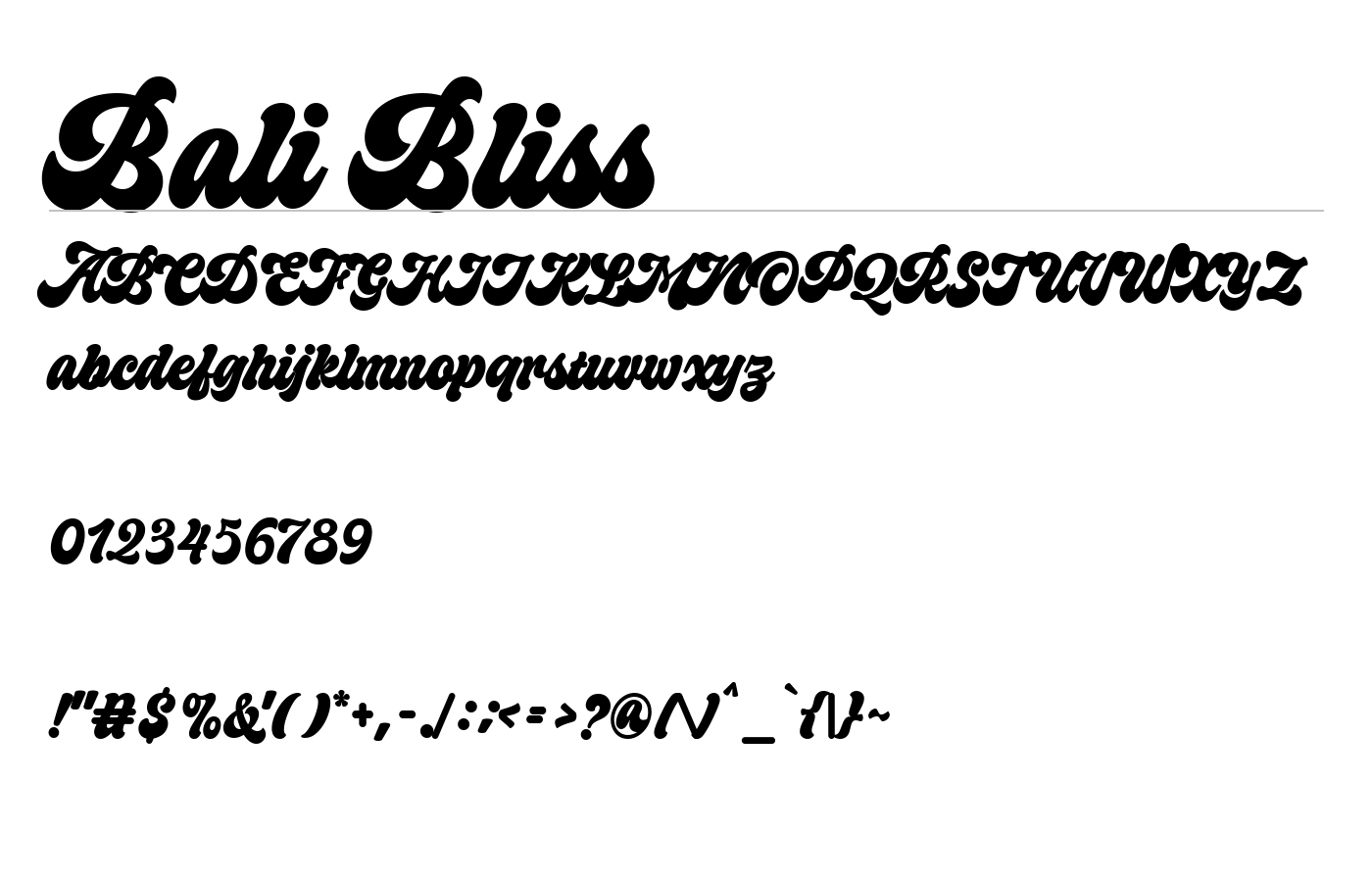
Bali Bliss is a bold, cursive script font with a playful yet elegant personality, featuring thick, rounded strokes and smooth, connected letterforms that create a warm and inviting feel. Its strong presence and stylish curves make it ideal for eye-catching logos, packaging, and headlines where a lively, handcrafted touch is desired. This font blends vintage charm with modern flair, making it perfect for creative brands aiming to stand out with a friendly, confident voice.
Bali Bliss Font
About Bali Bliss Font
| Font family | Bali Bliss Font |
| Designer | Zain Fahroni |